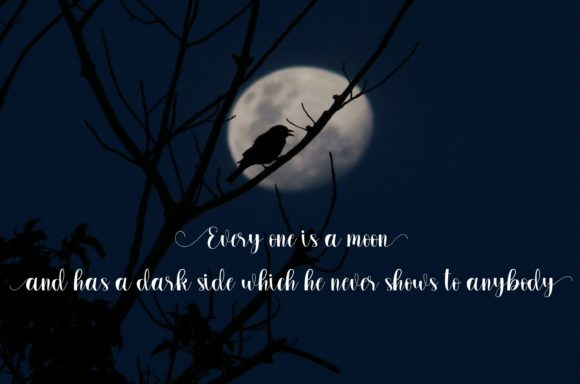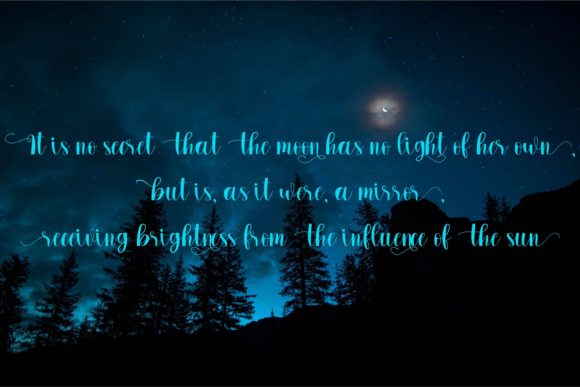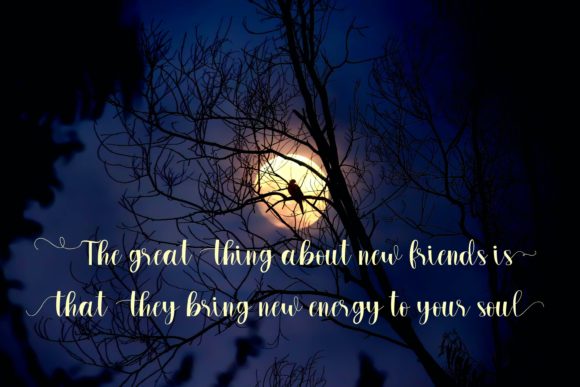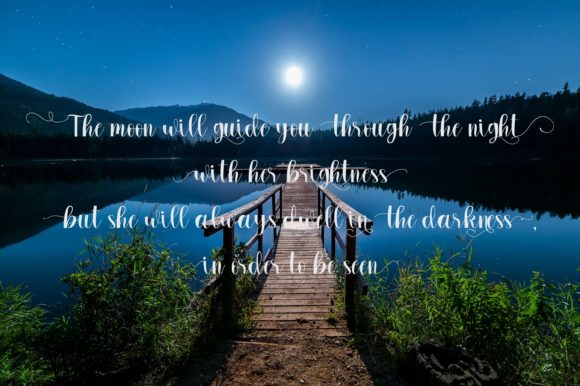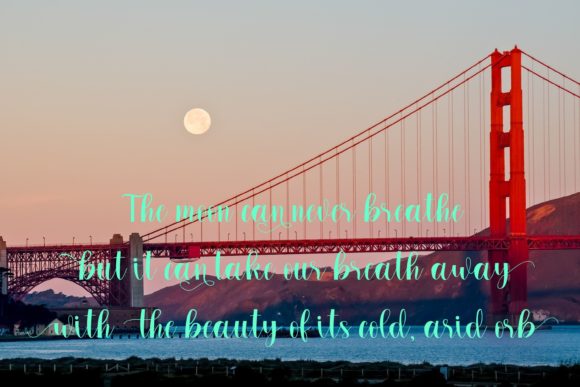
About Moonlight Font
“Moonlight” is a lovely and delicate script font that radiates elegance and class. With its refined appearance, this font was meticulously designed to provide a beautiful and refreshing look to your designs. “Moonlight” is equipped with PUA encoding, making it effortless to access the diverse range of amazing glyphs and ligatures it offers.
The font’s delicate and elegant letterforms bring a sense of grace and sophistication to your designs. Whether you’re working on branding, invitations, packaging, or digital graphics, “Moonlight” has the capacity to infuse your creations with a touch of timeless beauty and visual allure.
The font’s craftsmanship is showcased in its ability to seamlessly adapt to various design contexts. Its delicate script can enhance both formal and artistic projects, adding an element of refinement that resonates with viewers. By incorporating “Moonlight” into your designs, you introduce an aura of elegance and visual appeal that enhances the overall aesthetic.
In summary, “Moonlight” is more than just a font—it’s a creative tool that elevates your ideas with its lovely and delicate script. Its versatility and capacity to exude elegance make it a valuable asset for designers striving to create breathtaking and visually captivating designs that leave a lasting impression.